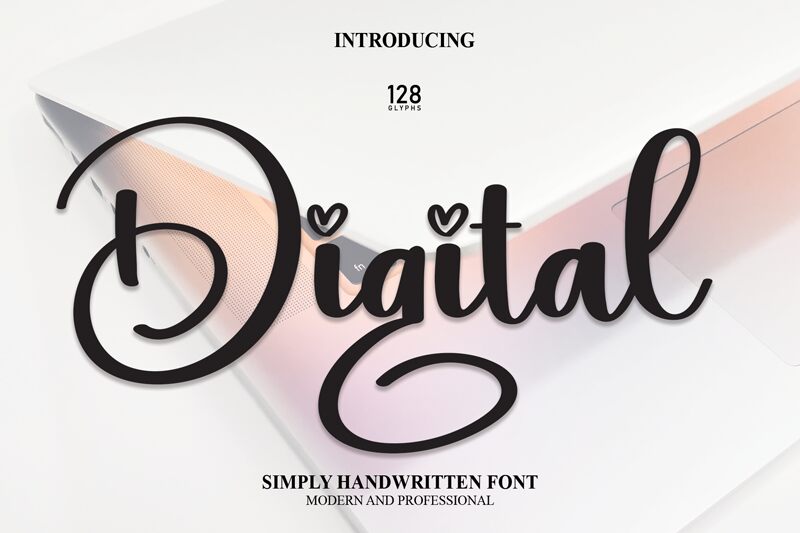
Digital
Digital, a captivating creation by Scratchones, is a semi-light, feminine calligraphy font that will add an elegant touch to any project.
Its graceful curves and delicate strokes make it perfect for wedding invitations, feminine branding, and romantic blog headers. The semi-light weight creates a subtle yet stylish appearance, making it suitable for social media graphics and beauty product packaging.
With Digital font typeface, bring sophistication and charm to your designs while evoking a sense of grace and femininity.